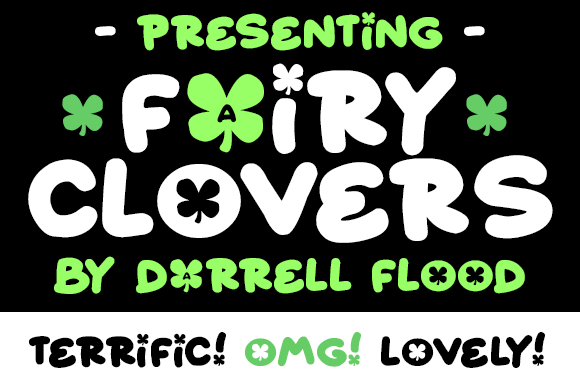
Introducing Fairy Clovers Font - A Whimsical Wonderland of Delight, Drenched in Irish Charm!
Embrace the magic of handwritten charm with our latest font offering, Fairy Clovers. Inspired by the exuberant spirit of St. Patrick's Day and deeply rooted in Irish folklore, this display font exudes an infectious energy that's simply irresistible. Its playful, rounded cartoon style beckons you into a world of enchantment, where words dance with an air of lightheartedness and joy.
Fairy Clovers is the epitome of versatility, effortlessly transitioning from lighthearted greetings to heartfelt expressions. Whether you're crafting whimsical St. Patrick's Day invitations or adding a touch of whimsy to your everyday designs, this font is your trusty companion. Its bubbly, bouncy strokes are like tiny clover-shaped clouds, inviting you to explore a realm where imagination knows no bounds.
Immerse yourself in the beauty of Fairy Clovers and watch as your designs transform into captivating works of art. Its charming personality will add a touch of magic to your social media posts, breathe life into your blog headers, and make your digital creations stand out from the crowd. Unleash your creativity and let the enchantment of Fairy Clovers guide you to design masterpieces that capture hearts and spread smiles wherever they go.